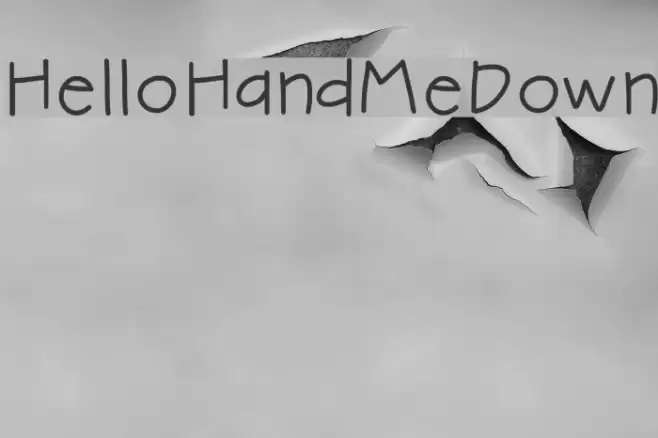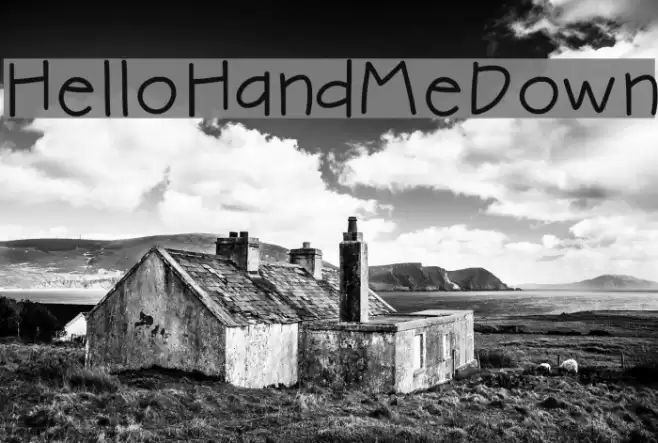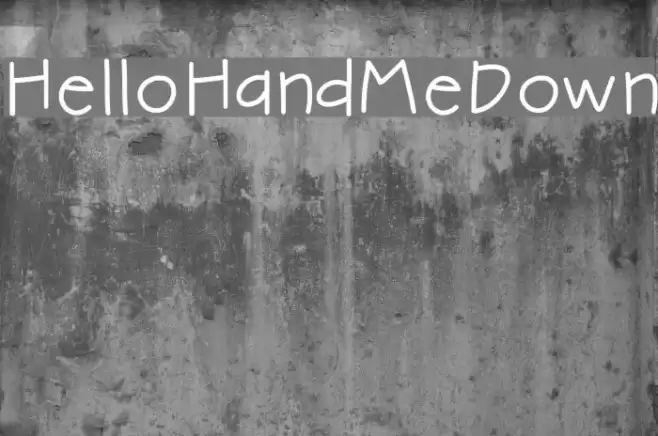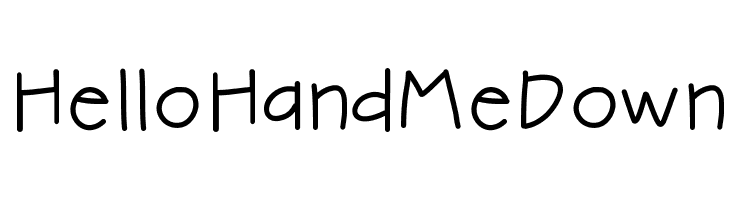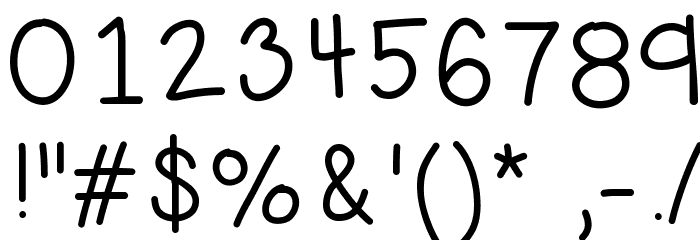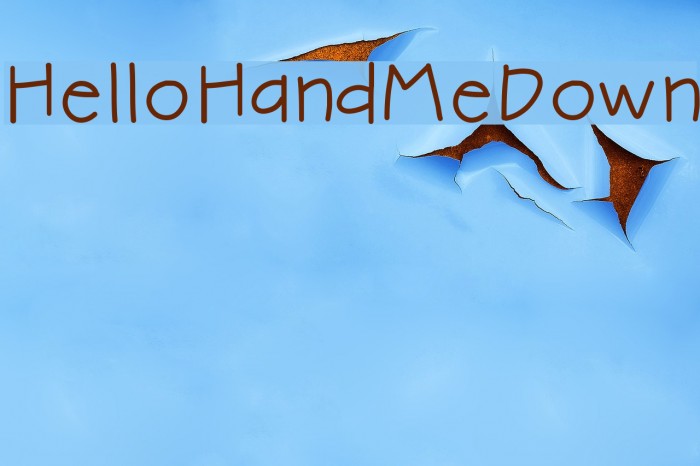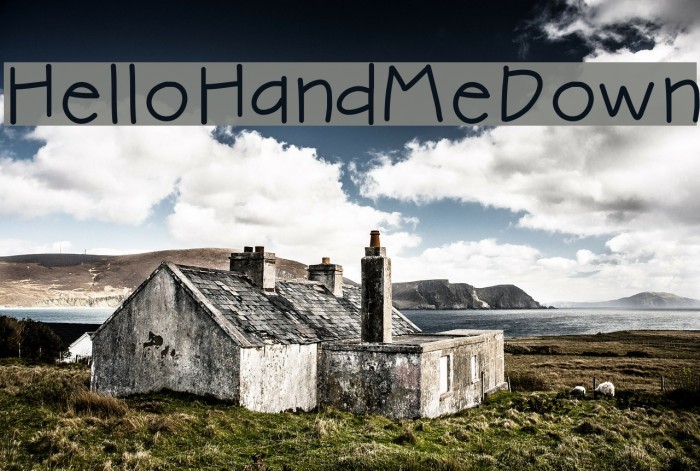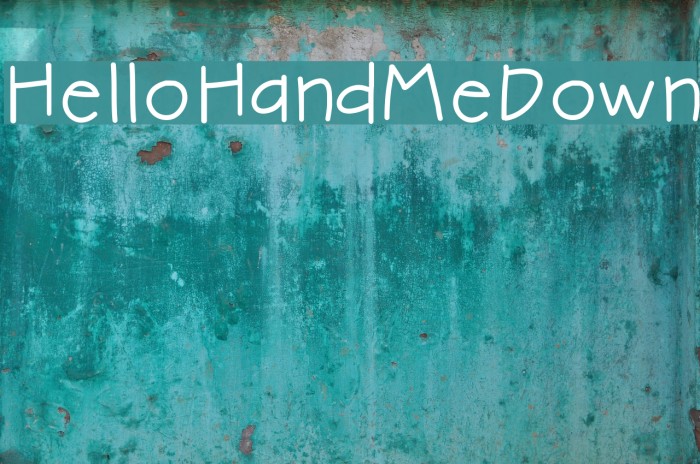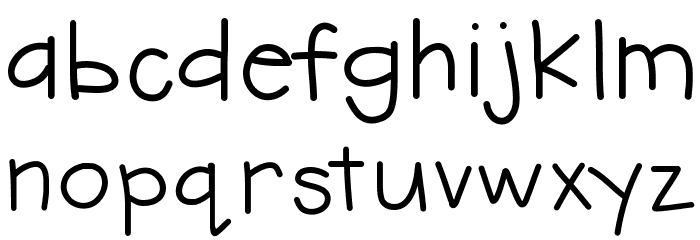
HelloHandMeDown Font
HelloHandMeDown Description
This font features a playful and informal handwritten style, characterized by its rounded and slightly irregular letterforms. The uppercase and lowercase letters maintain a consistent flow, giving a casual and friendly appearance. The numerals are clear and easy to read, matching the overall aesthetic of the alphabet. Special characters are included, maintaining the same whimsical style. The strokes are uniform in thickness, contributing to a harmonious look across all characters. This font is ideal for projects that require a personal touch or a relaxed vibe.
A playful, handwritten font with rounded, informal letterforms from Handwritten fonts.
- Proposed Projects: Ideal for children's books, greeting cards, casual invitations, and playful branding.
- Overall Style: Casual
- Use Case: Headlines, Informal text, Branding